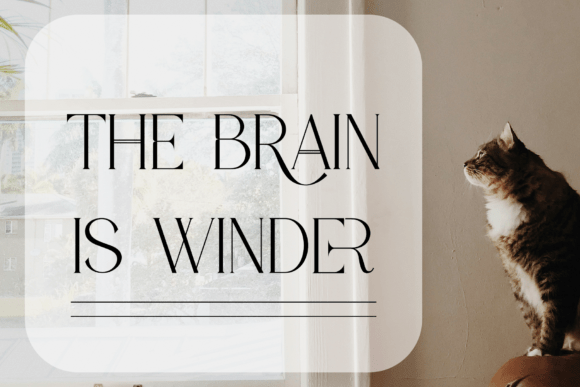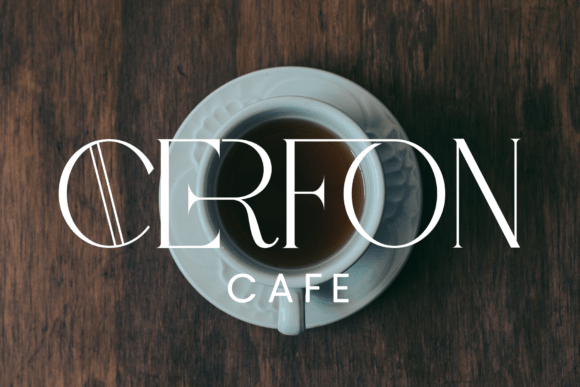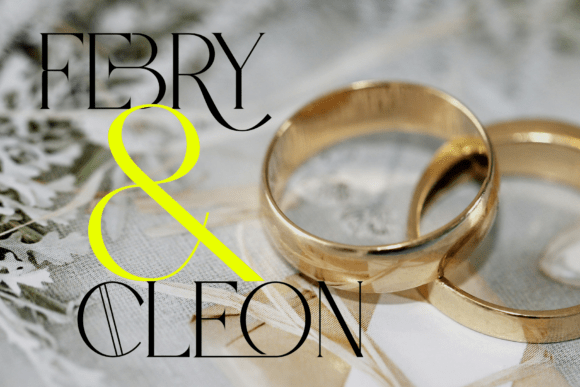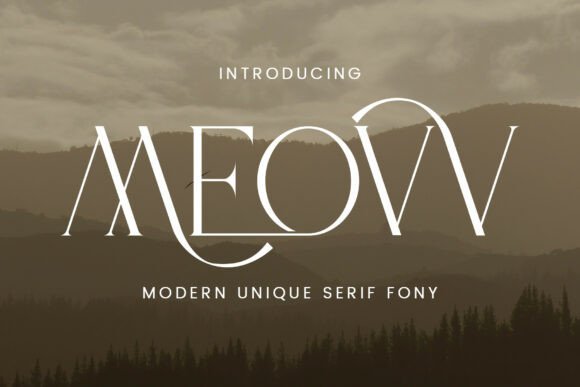
Introduction to Meovv Font
The Meovv font is a breathtaking exploration of high-fashion elegance, offering a “unique” take on the classic serif that is both sharp and incredibly fluid.
This Meovv typeface is characterized by its dramatic, sweeping swashes and hairline-thin connectors, creating a visual rhythm that mimics the grace of a calligraphic pen The Meovv font represents the pinnacle of sophisticated display typography, designed specifically for brands that want to communicate exclusivity, beauty, and artistic flair.
Key Features of Meovv Font